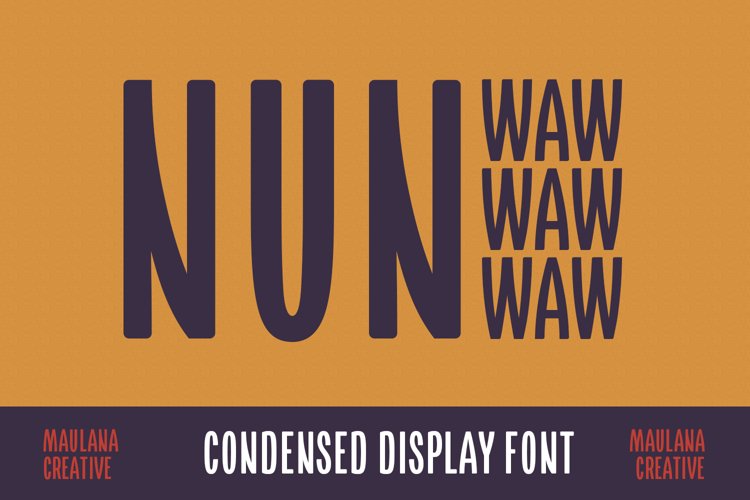
Nun Waw is a modern humanist condensed sans display font. Bold stroke, fun character with a bit of ligatures and alternates. To give you an extra creative work. Nun Waw font support multilingual more than 100+ language. This font is good for logo design, Social media, Movie Titles, Books Titles, a short text even a long text letter and good for your secondary text font with script or serif. Make a stunning work with Nun Waw font.